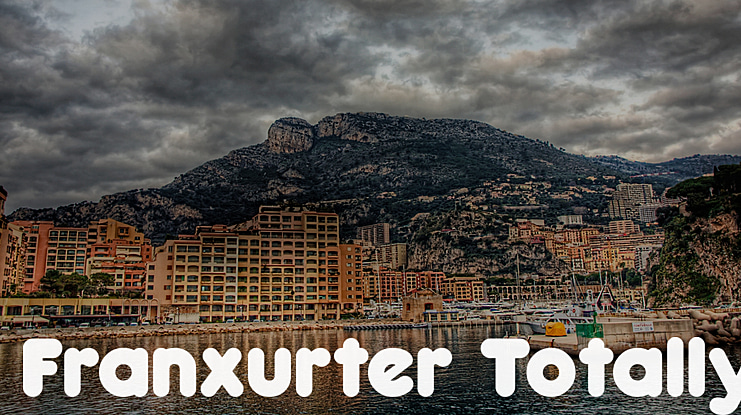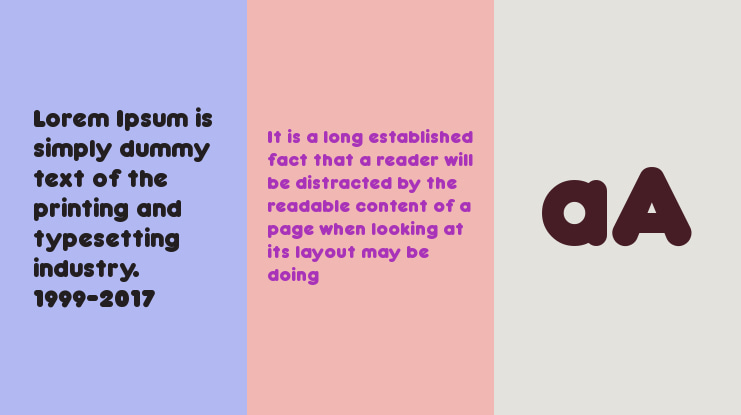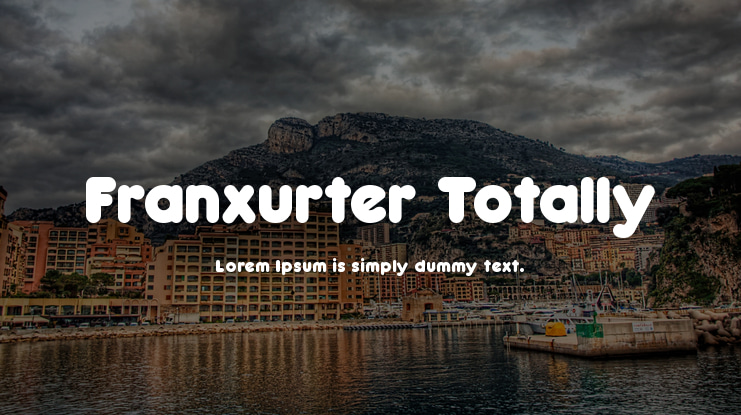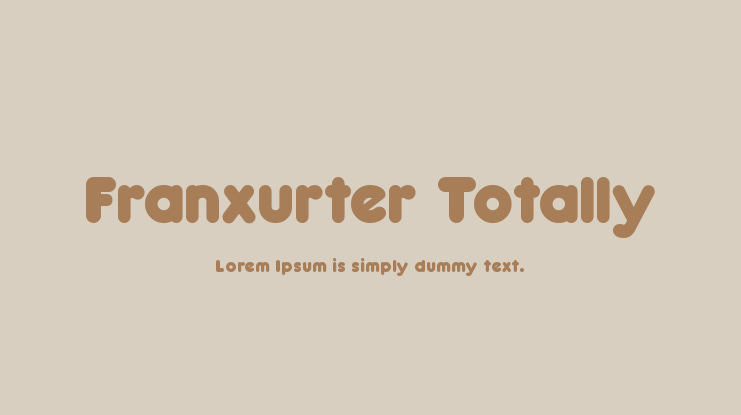
Franxurter Totally Font Family
Hello and I want to thank you for choosing Franxurter Totally, my impression of Nick, Alan, and Bob's Frankfurter and Casady & Greene's Rocko!
You mostly may see the same old design in Max & Ruby, as seen on Nick Jr.—even on Nick Jr. on Pluto TV, but you also may see it in lots of other stuff.
Like the original Franxurter, you can use it for birthday parties, 80's-type parties, box office supplies, recipe books, toy catalogues, and many other things. Party like it’s 1981 (or so), and mind your F's and X's.
'Frankfurter' was originally designed by Nick Belshaw, Alan Meeks, and Bob Newman, and 'Rocko' was originally designed by Robin Casady, Richard Ware, and Michael Wright.